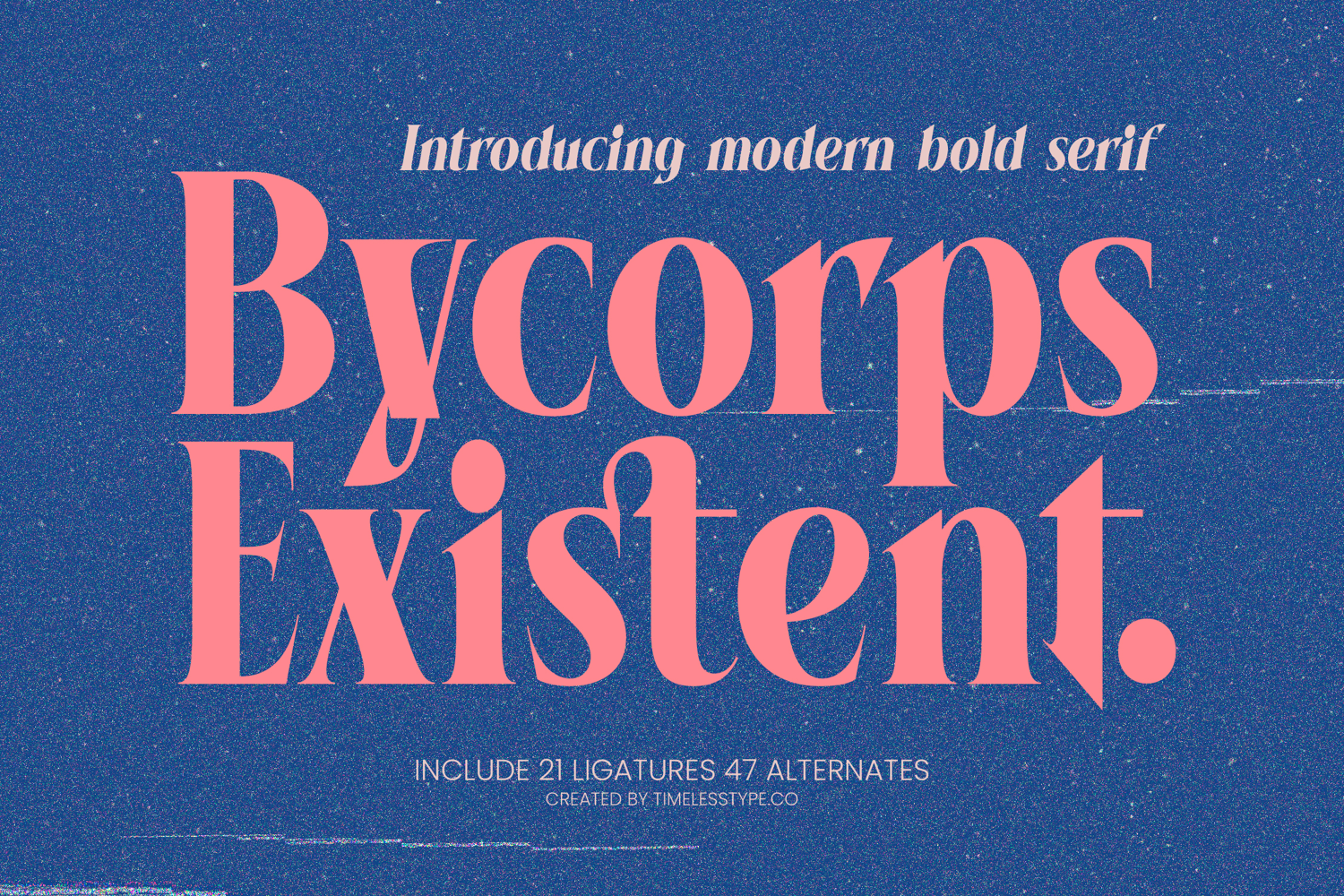
Bycorps Existent - Modern Bold Serif
Bycorps Existent Italic
Bycorps Existent
Bycorps Existent - Modern Bold Serif
Command immediate attention with Font Bycorps Existent - Modern Bold Serif Serif Display, a striking display typeface designed to elevate your creative projects. This modern bold serif captivates with its high-contrast letterforms and elegant proportions, exuding a sense of sophistication and timeless luxury. Its assertive yet refined presence makes it the ultimate choice for designs that demand to be noticed and remembered.
Unlock unparalleled design possibilities through the intricate details of Font Bycorps Existent - Modern Bold Serif Serif Display. Boasting an impressive collection of 21 ligatures and 47 alternates, this font offers boundless creative freedom, allowing for truly customized and unique typographical compositions. With its extensive multilingual support, Font Bycorps Existent - Modern Bold Serif Serif Display adapts seamlessly across global markets, making it incredibly versatile for international projects.
Perfectly suited for where visual impact and prestige are paramount, Font Bycorps Existent - Modern Bold Serif Serif Display excels in a variety of applications. It is ideal for luxury branding, high-end editorial design, fashion magazines, premium packaging, elegant website headers, and impactful poster design. This font empowers brands to communicate a message of exclusivity, modernity, and undeniable style.
Invest in design excellence and distinguish your work with the unique character of Font Bycorps Existent - Modern Bold Serif Serif Display. This typeface is more than just letters; it's a statement, a testament to discerning taste and a powerful tool for visual storytelling. Elevate your creative endeavors and ensure your message resonates with unparalleled clarity and bold sophistication.